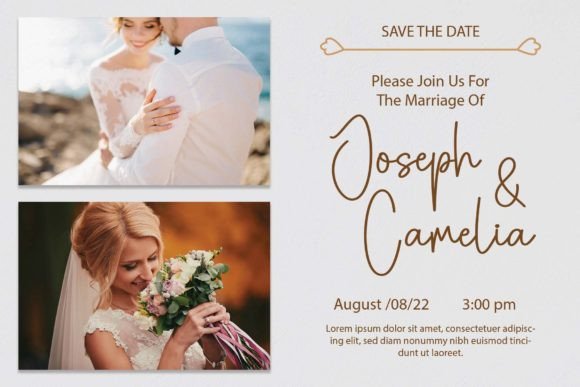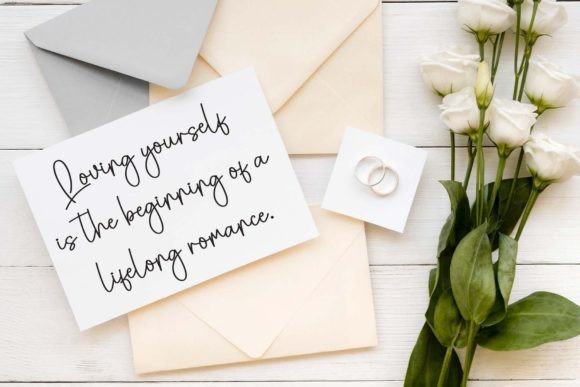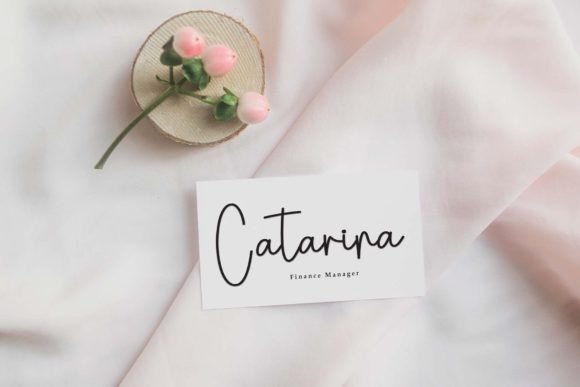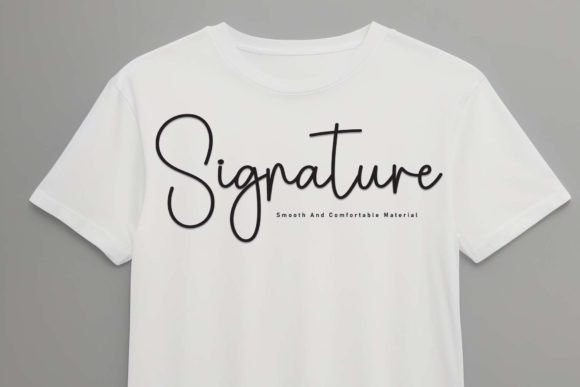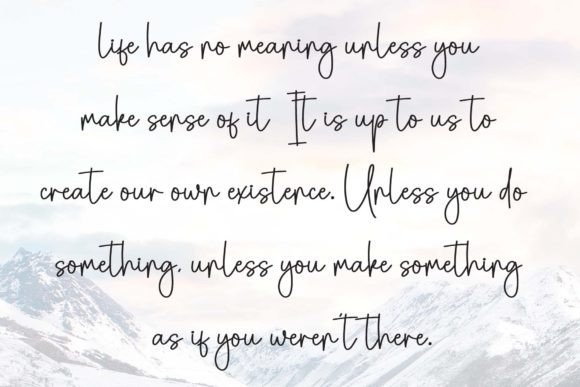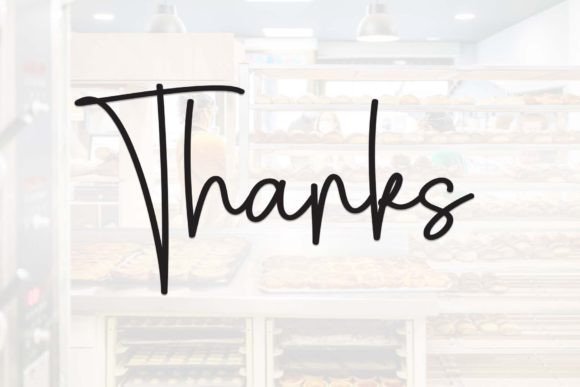
Breadshop Font: The Sweet and Friendly Handwritten Font for Your Design Needs
Are you a designer or crafter looking for a font that can add a touch of warmth and personality to your projects? Look no further than Breadshop Font! This sweet and friendly handwritten font is perfect for a wide range of designs, from branding and packaging to invitations and DIY crafts. In this article, we’ll take a closer look at Breadshop Font, its features, and how you can use it to take your designs to the next level.
What is Breadshop Font?
Breadshop Font is a beautiful, handwritten font that is designed to be both sweet and friendly. Its natural and unique style makes it incredibly versatile, and it’s perfect for designers and crafters who want to add a personal touch to their work. Whether you’re creating a logo, a brochure, or a social media graphic, Breadshop Font is sure to make your design stand out.
Features of Breadshop Font
So, what makes Breadshop Font so special? Here are just a few of its key features:
- Handwritten style: Breadshop Font has a natural, handwritten look that’s perfect for designs that need a personal touch.
- Unique and distinctive: Unlike more traditional fonts, Breadshop Font has a unique and distinctive style that’s sure to make your design stand out.
- Versatile: Breadshop Font is incredibly versatile, and it can be used for a wide range of designs, from formal to informal.
- Easy to read: Despite its handwritten style, Breadshop Font is easy to read, even at small sizes.
How to Use Breadshop Font
So, how can you use Breadshop Font in your designs? Here are a few ideas to get you started:
- Branding and packaging: Use Breadshop Font to create a unique and memorable brand identity for your business or product.
- Invitations and events: Add a personal touch to your invitations and event materials with Breadshop Font.
- DIY crafts: Use Breadshop Font to add a personal touch to your DIY crafts, such as scrapbooking, card making, and more.
- Social media graphics: Use Breadshop Font to create eye-catching social media graphics that will help your brand stand out.
Tips for Using Breadshop Font
Here are a few tips for getting the most out of Breadshop Font:
- Experiment with different sizes and colors: Breadshop Font looks great at a wide range of sizes and colors, so don’t be afraid to experiment and find the look that works best for your design.
- Pair it with other fonts: Breadshop Font pairs well with a wide range of other fonts, so try combining it with other fonts to create a unique and interesting look.
- Use it consistently: To get the most out of Breadshop Font, use it consistently throughout your design. This will help to create a cohesive and professional-looking design.
In conclusion, Breadshop Font is a sweet and friendly handwritten font that’s perfect for designers and crafters who want to add a personal touch to their work. Its natural and unique style makes it incredibly versatile, and it’s perfect for a wide range of designs. Whether you’re creating a logo, a brochure, or a social media graphic, Breadshop Font is sure to make your design stand out. So why not give it a try and see what you can create?